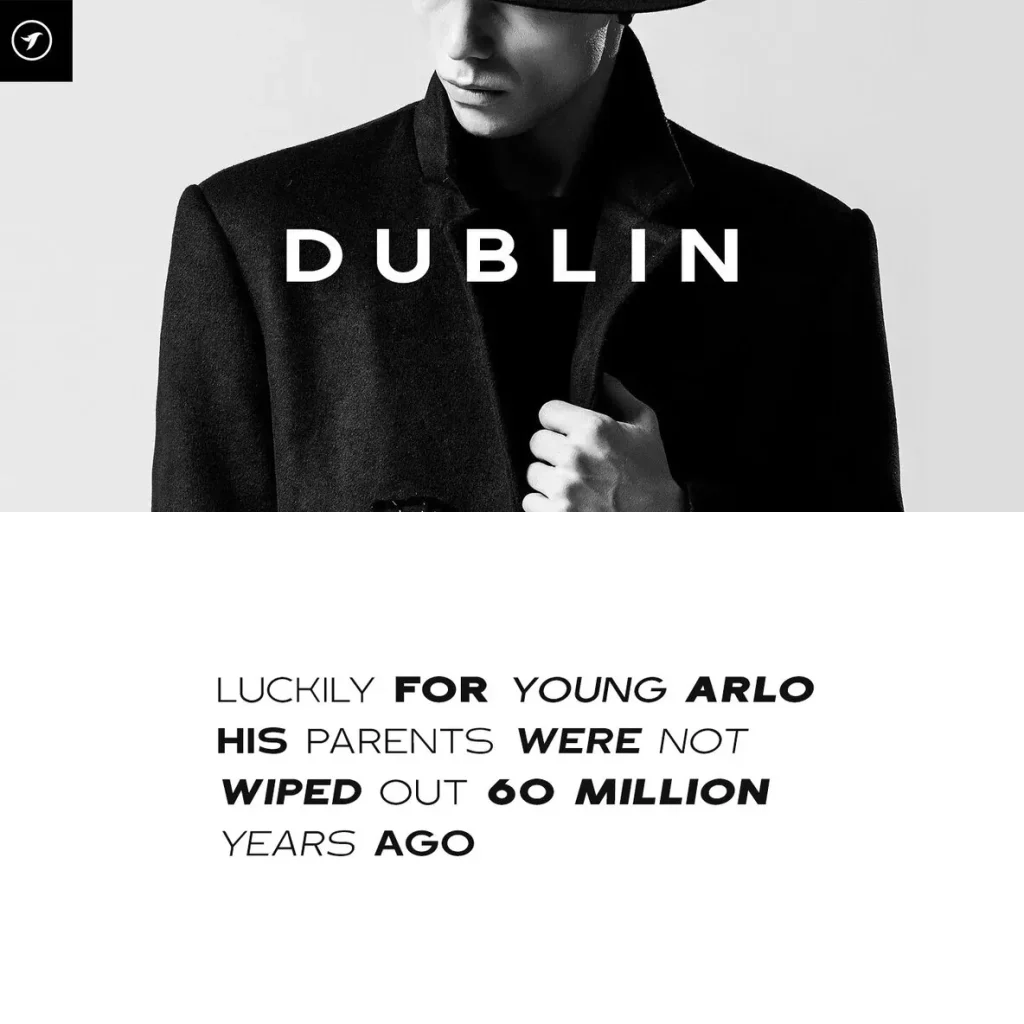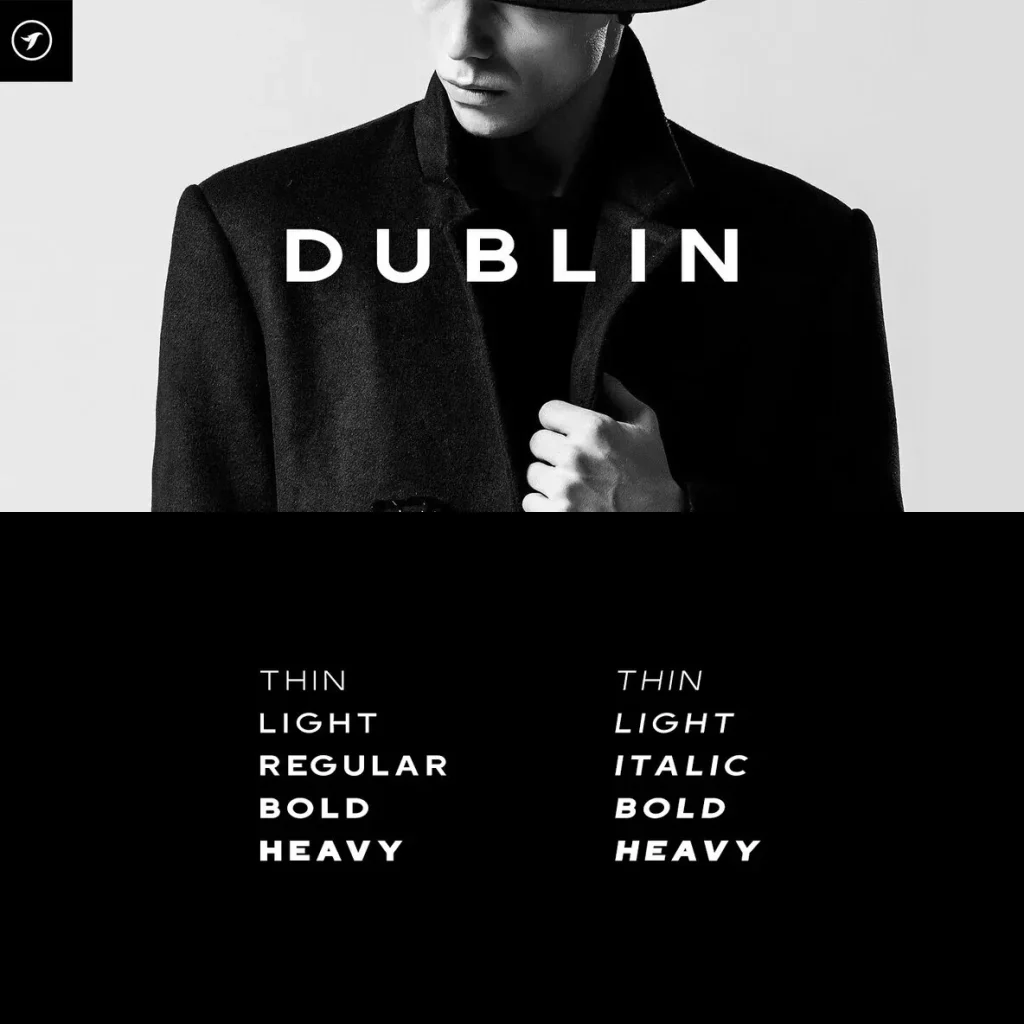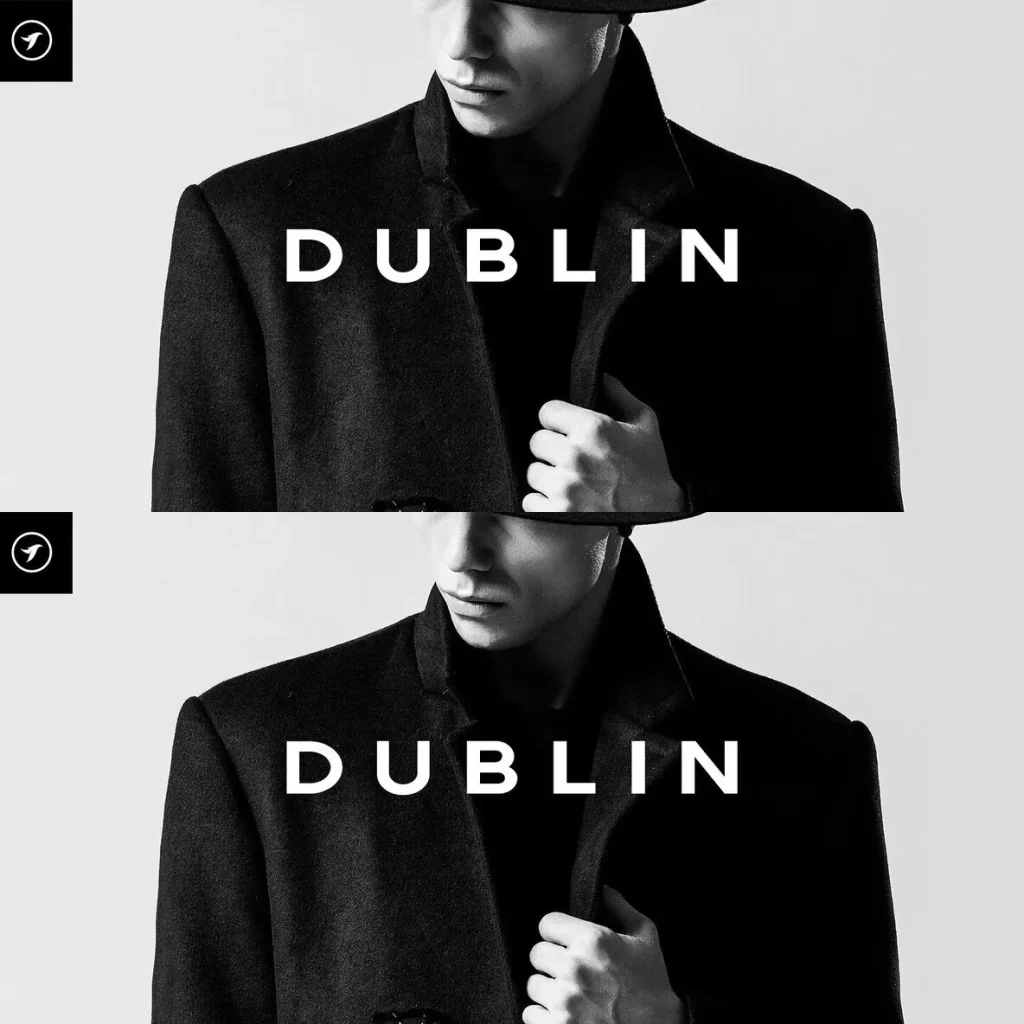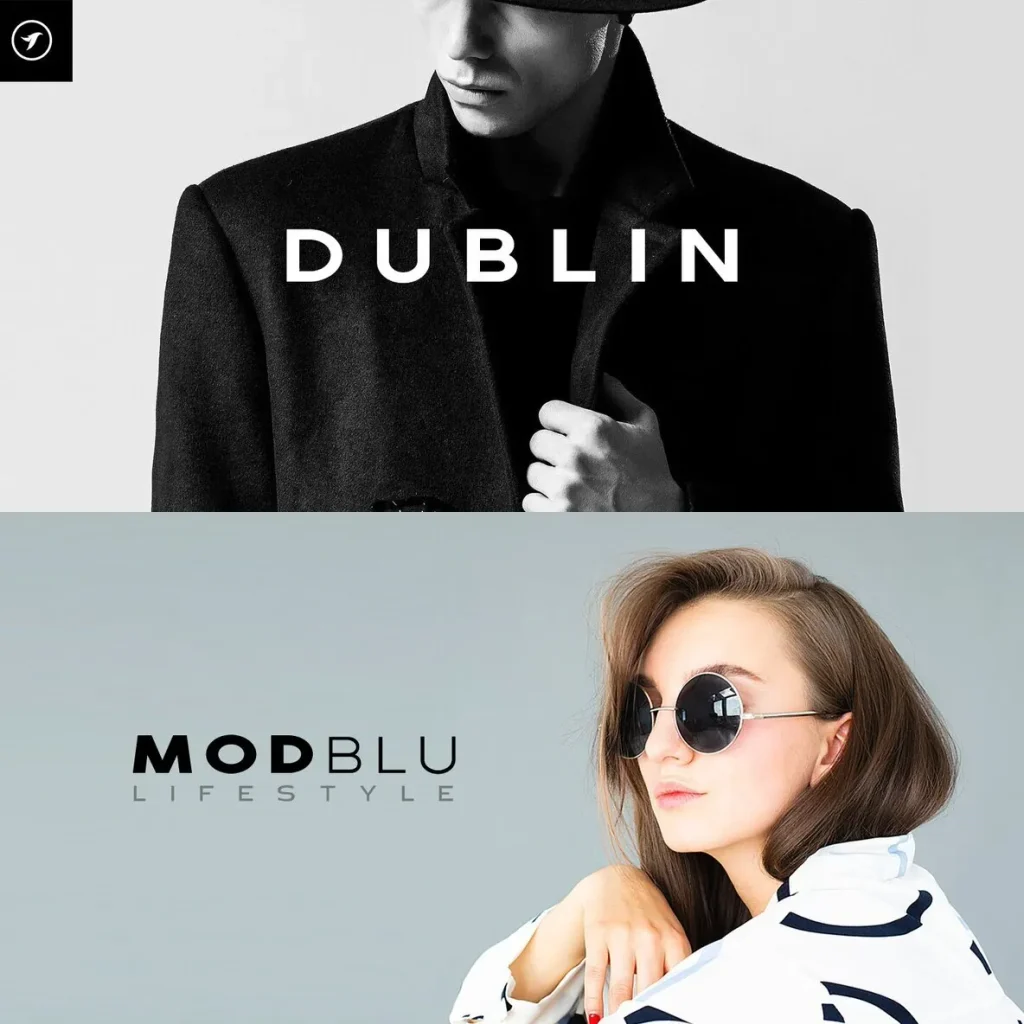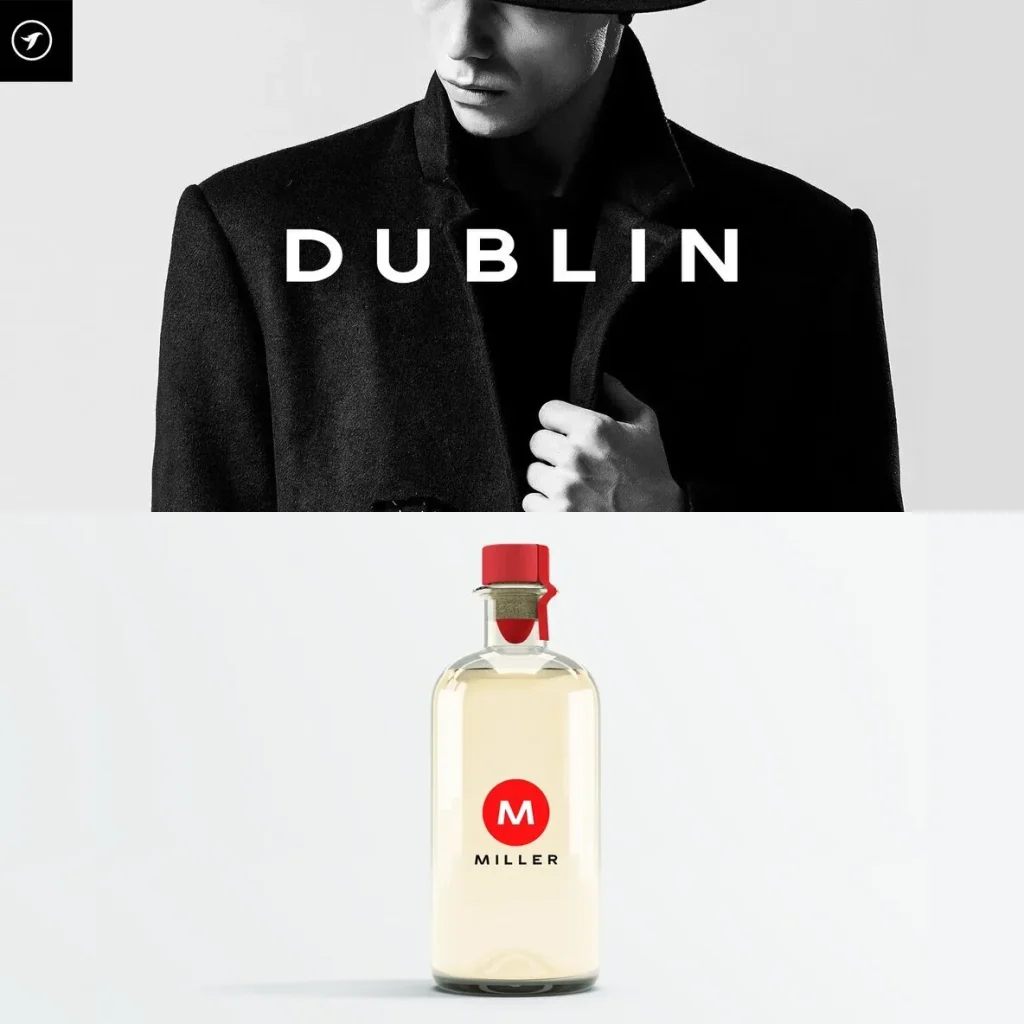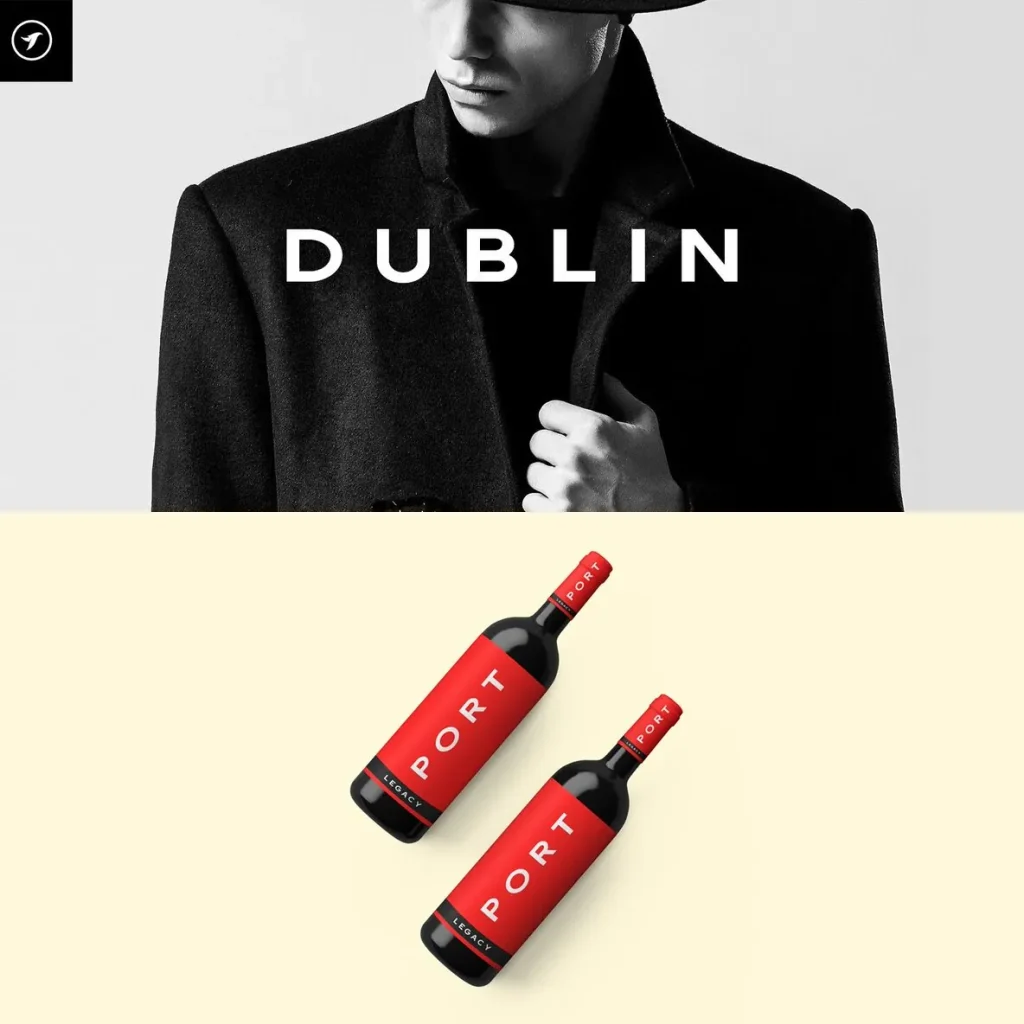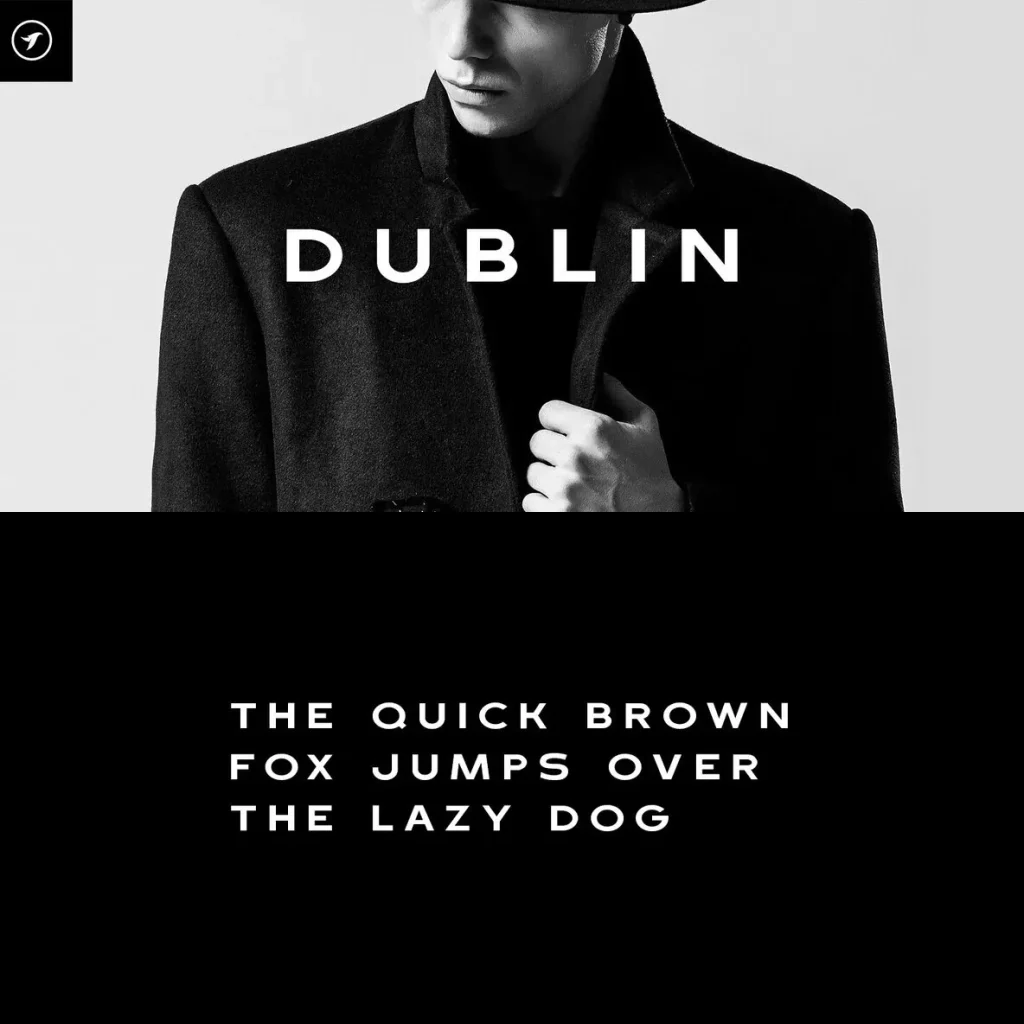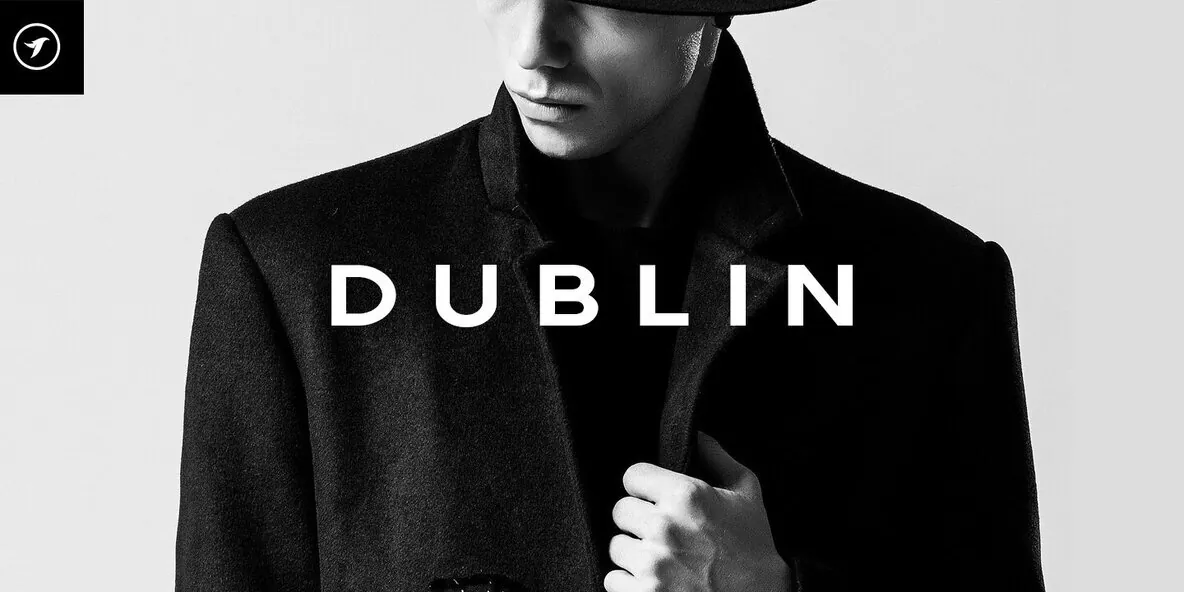
DUBLIN — Bold Headlines, Clean Control
DUBLIN is a display headline typeface with strong character, clean styling, and a contemporary design approach. Its bold appearance gives headlines clear visual presence while keeping a refined, professional look. The letterforms are suited to work where type needs to be direct, confident, and carefully presented.
Designed for posters, branding, editorial titles, packaging, advertisements, and modern creative projects, DUBLIN brings a focused voice to visual compositions. It works especially well in settings that call for prominent display typography with clarity and impact. Use DUBLIN when a project needs a headline typeface that feels bold, clean, and current without losing its polished edge.